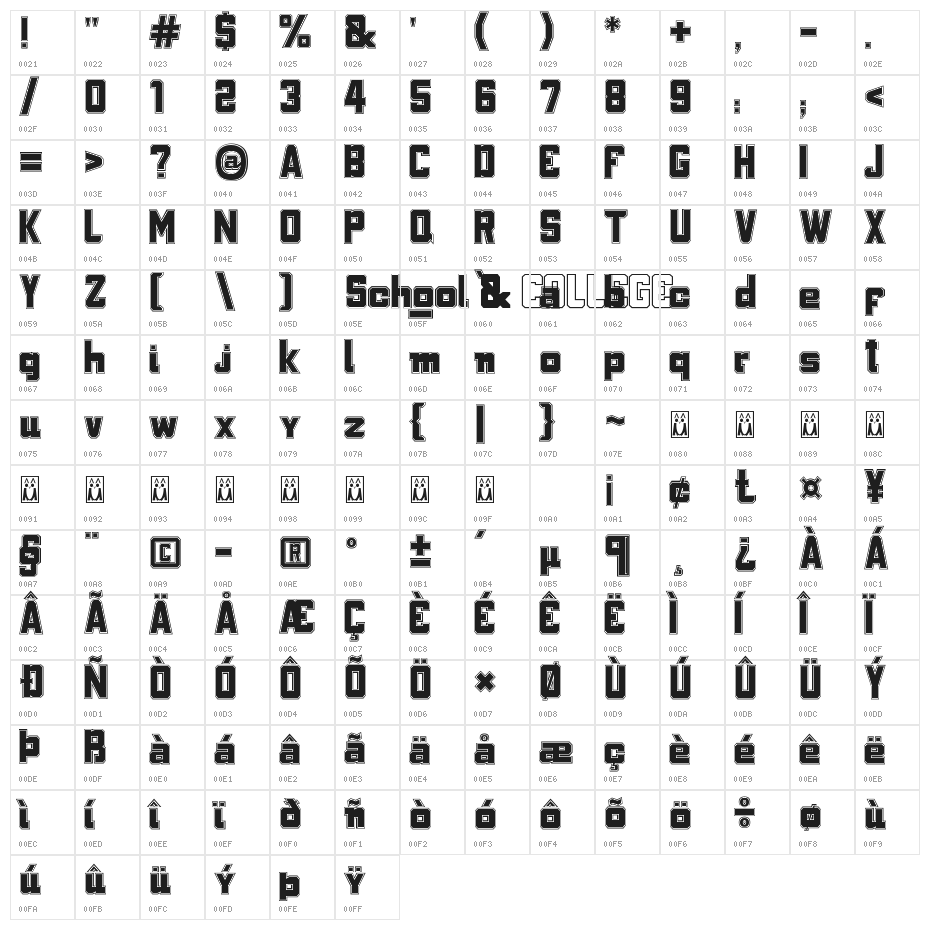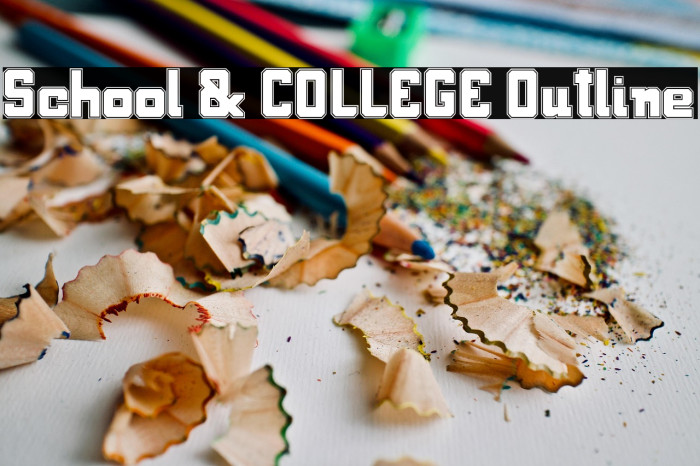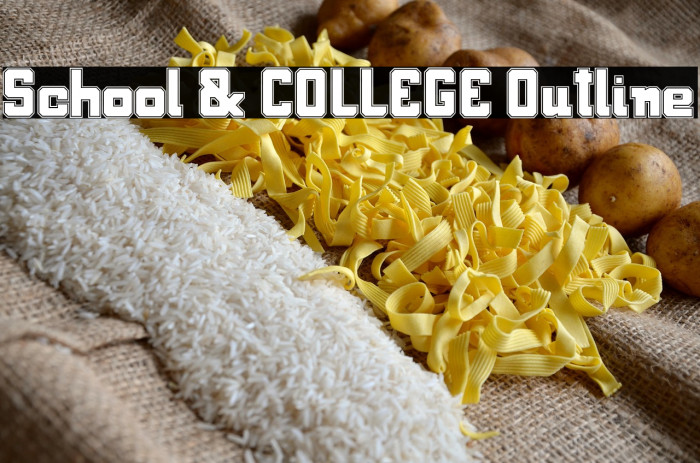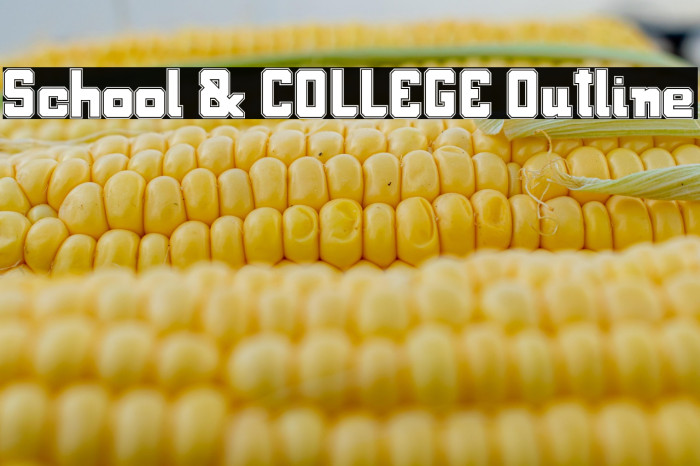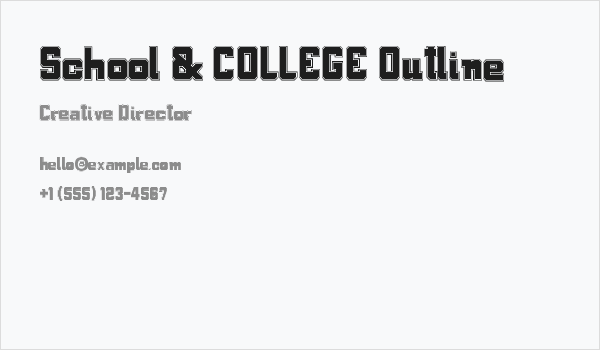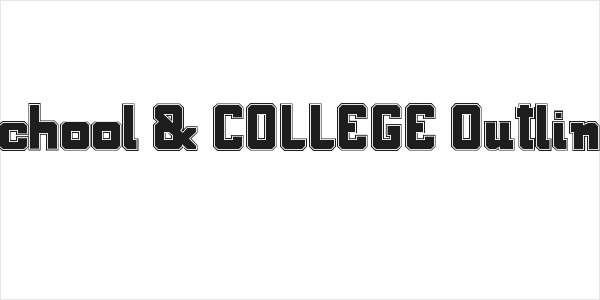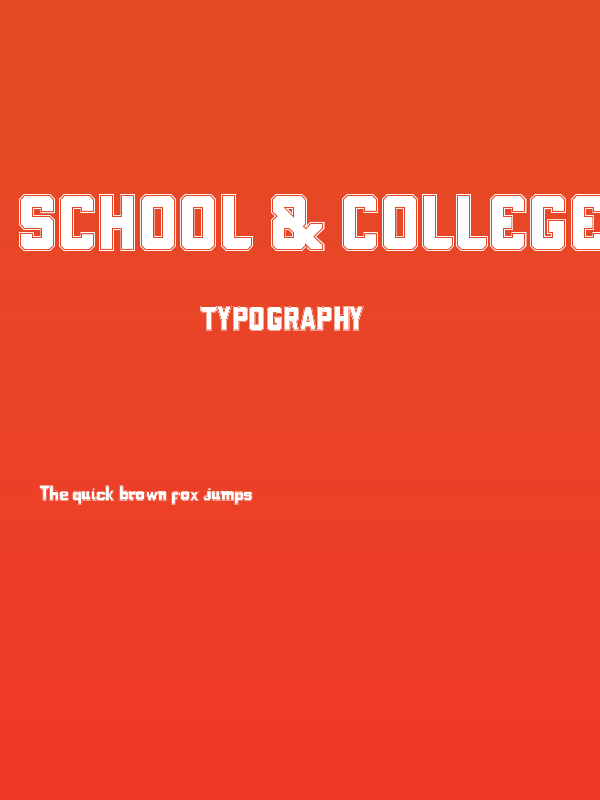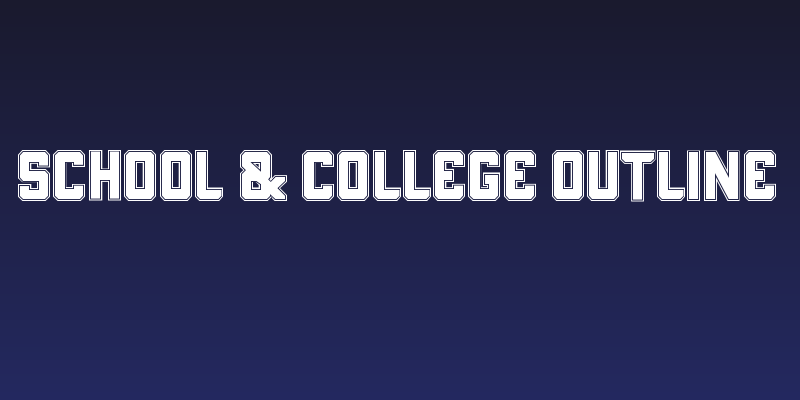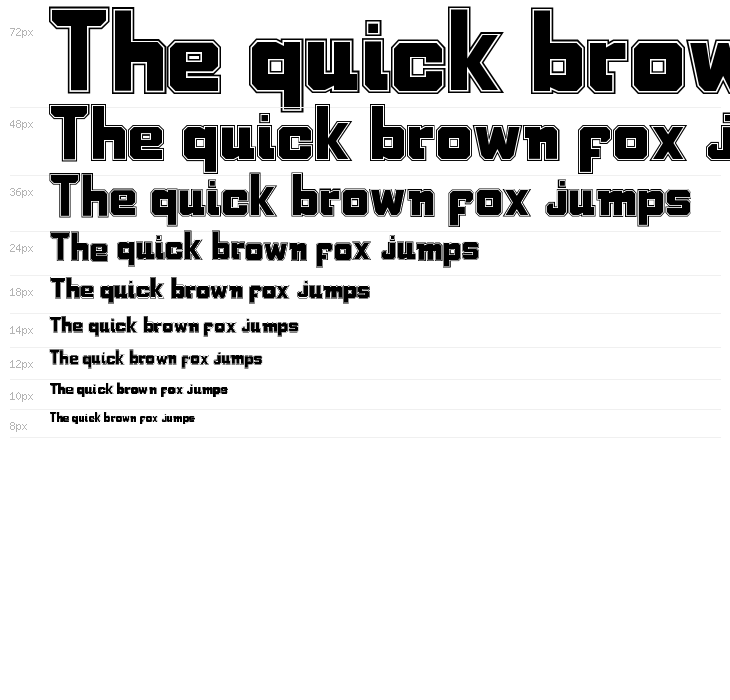
School & COLLEGE Outline Font
School & COLLEGE Outline Description
This font features a bold, outlined style with a strong, collegiate aesthetic. The uppercase letters are blocky and robust, giving a sense of strength and tradition. The lowercase letters maintain the same bold outline, providing consistency across the typeface. Numbers and special characters follow the same design principles, ensuring a cohesive look. The font's outline adds a layer of depth, making it stand out in various applications. Its structured form and clear readability make it suitable for both digital and print media.
Overall StyleClassic
Proposed ProjectsIdeal for school branding, sports team logos, event posters, and merchandise designs.